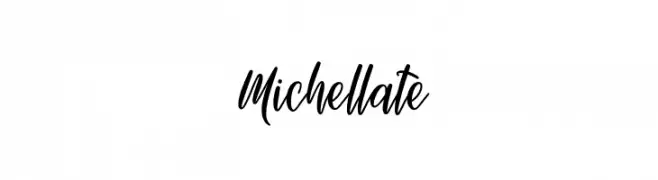
A bold and intricate Blackletter font with ornate, angular letterforms.
An elegant script font with flowing, cursive letterforms and classic sophistication.
An elegant script font with flowing, cursive strokes and sophisticated design.
A modern, elegant script font with fluid, graceful strokes.
A bold, outlined font with a fantasy-inspired, geometric style.
A bold, decorative font with a fantasy-inspired, angular design.
A bold, geometric font with vintage railway-inspired design.
A bold, shadowed font with a vintage yet modern aesthetic.
A bold, shadowed font with a vintage flair, perfect for standout headlines.
A modern, geometric font with clean lines and a slightly condensed style.